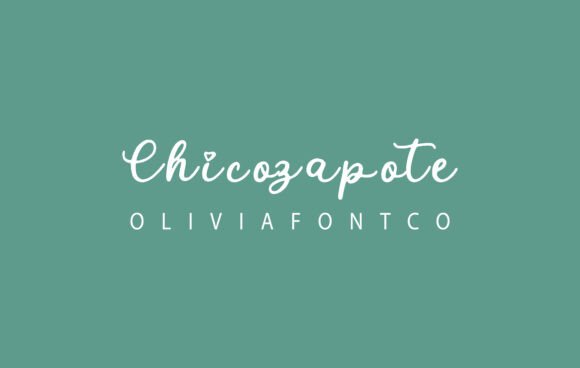
Introducing Chicozapote Font: The Ultimate Handwritten Font for Creative Expression
In the world of typography, fonts play a crucial role in conveying the tone and personality of a brand or design. Among the numerous fonts available, Chicozapote font stands out as a unique and authentic handwritten font that adds a romantic touch to any creative project. In this article, we’ll explore the features and benefits of Chicozapote font, and how it can elevate your designs to new heights.
What is Chicozapote Font?
Chicozapote font is a carefully crafted handwritten font that boasts a distinctive romantic flair. Designed to be a true favorite among designers and creatives, this font is engineered to bring a touch of elegance and sophistication to any project. Whether you’re working on a magazine headline, social media post, branding campaign, wedding invitation, or card, Chicozapote font is the perfect choice.
Key Features of Chicozapote Font
So, what makes Chicozapote font so special? Here are some of its key features:
- Authentic Handwritten Style: Chicozapote font is designed to mimic the natural flow and imperfections of handwritten text, giving it a unique and personal touch.
- Romantic Touch: This font exudes a sense of romance and elegance, making it perfect for designs that require a touch of sophistication.
- Legibility: Despite its handwritten nature, Chicozapote font is remarkably legible, making it suitable for use as both title and body text.
- Versatility: This font can be used for a wide range of design applications, from magazine headlines and social media posts to branding campaigns, wedding invitations, and more.
Benefits of Using Chicozapote Font
By incorporating Chicozapote font into your designs, you can enjoy a range of benefits, including:
- Enhanced Creativity: With Chicozapote font, you can add a touch of personality and whimsy to your designs, helping them to stand out in a crowded marketplace.
- Increased Legibility: The font’s exceptional legibility ensures that your message is conveyed clearly and effectively, regardless of the design application.
- Professionalism: Chicozapote font’s elegant and sophisticated design makes it perfect for professional branding and marketing campaigns.
- Emotional Connection: The font’s romantic touch can help create an emotional connection with your audience, making your designs more relatable and engaging.
Design Applications for Chicozapote Font
Chicozapote font is an incredibly versatile font that can be used for a wide range of design applications, including:
- Magazine Headlines: Add a touch of elegance and sophistication to your magazine headlines with Chicozapote font.
- Social Media: Use Chicozapote font to create eye-catching social media posts that stand out in crowded feeds.
- Branding: Incorporate Chicozapote font into your branding campaigns to add a touch of personality and whimsy.
- Wedding Invitations: Make your wedding invitations truly special with Chicozapote font’s romantic and elegant design.
- Cards: Use Chicozapote font to create beautiful and heartfelt cards for special occasions.
Tips for Using Chicozapote Font Effectively
To get the most out of Chicozapote font, here are some tips to keep in mind:
- Experiment with Font Sizes: Chicozapote font looks great in a variety of font sizes, so don’t be afraid to experiment to find the perfect fit for your design.
- Pair with Other Fonts: Combine Chicozapote font with other fonts to create a unique and visually appealing typography scheme.
- Use for Emphasis: Use Chicozapote font to draw attention to key messages or calls-to-action in your designs.
In conclusion, Chicozapote font is an exceptional handwritten font that offers a unique blend of romance, elegance, and legibility. With its versatility and range of design applications, this font is perfect for creatives and designers looking to add a touch of personality and sophistication to their projects. Whether you’re working on a magazine headline, social media post, branding campaign, or wedding invitation, Chicozapote font is sure to take your designs to the next level.